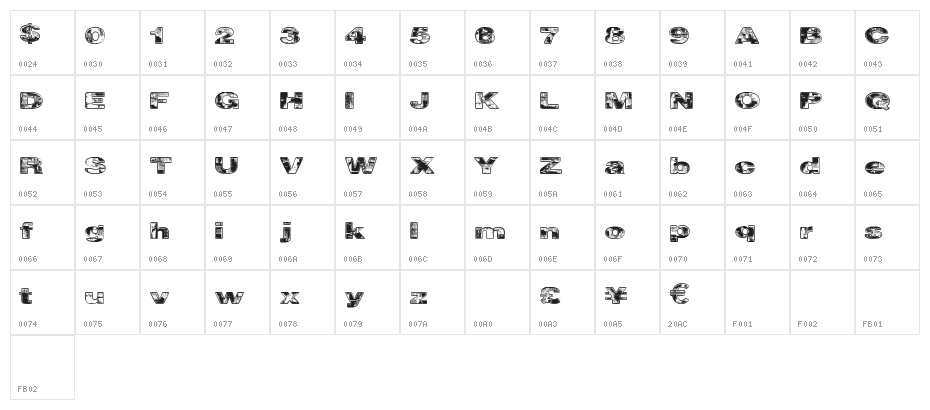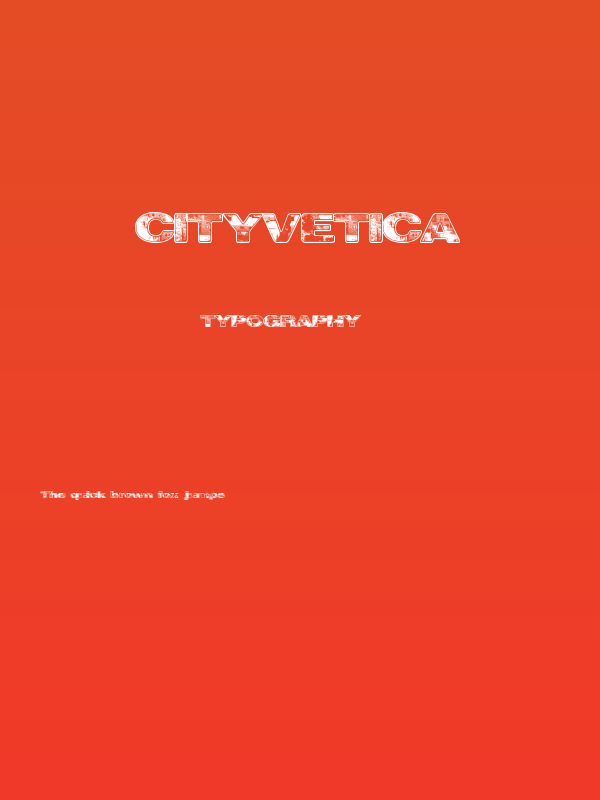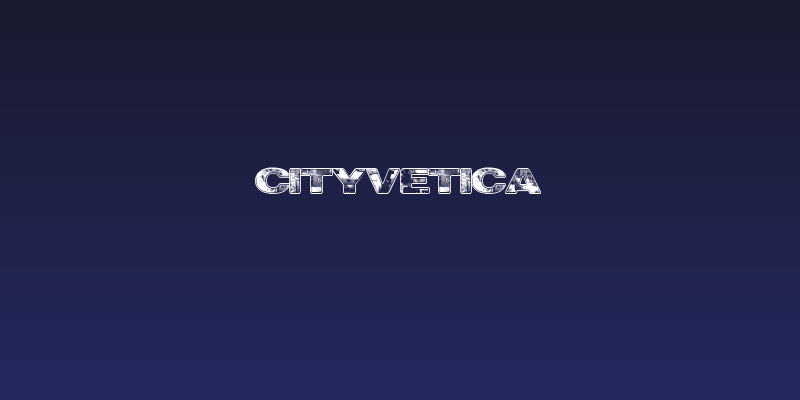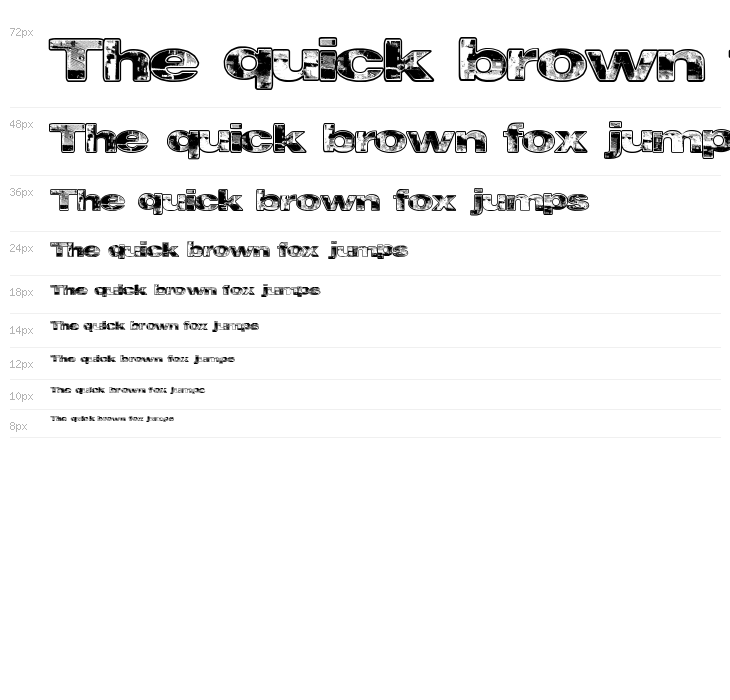
CityVetica Font
CityVetica Description
This font features a bold, urban aesthetic with a distressed texture that gives it a gritty, industrial feel. The characters are blocky and robust, with a consistent width that adds to its strong presence. The distressed effect is consistent across all characters, adding a unique, worn look that suggests a sense of history or urban decay. The uppercase and lowercase letters maintain a uniform style, while the numbers and special characters are equally bold and textured. This font is ideal for projects that require a bold statement or an edgy, modern look.
| Overall Style | Modern, Urban, Industrial |
| Proposed Projects | Ideal for urban-themed posters, album covers, streetwear branding, or any project needing a gritty, bold statement. |